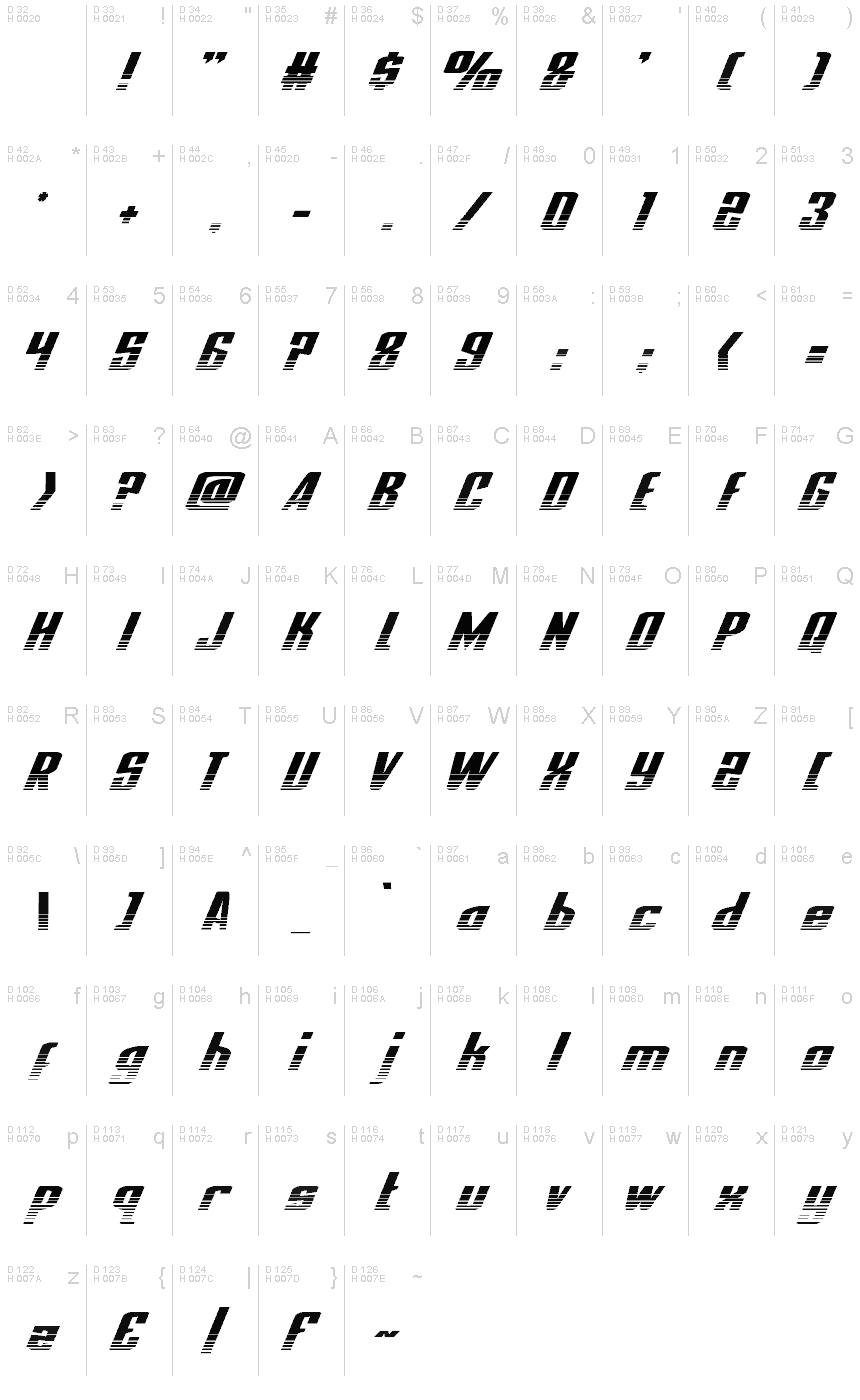
National Express Halftone Italic
National Express Halftone Italic is a bold, dynamic font that exudes a distinctly futuristic flair. Designed by Daniel Zadorozny, this condensed typeface effortlessly blends elements of techno and display styles, creating a striking visual impact. The halftone effect adds depth and texture, while the italic form lends a sense of movement and energy. This font excels in attention-grabbing applications, such as headlines, posters, and branding materials, where its unique character can truly shine.
Its versatility also makes it a compelling choice for digital interfaces, packaging design, and other contemporary design projects that require a bold, technologically-inspired aesthetic.